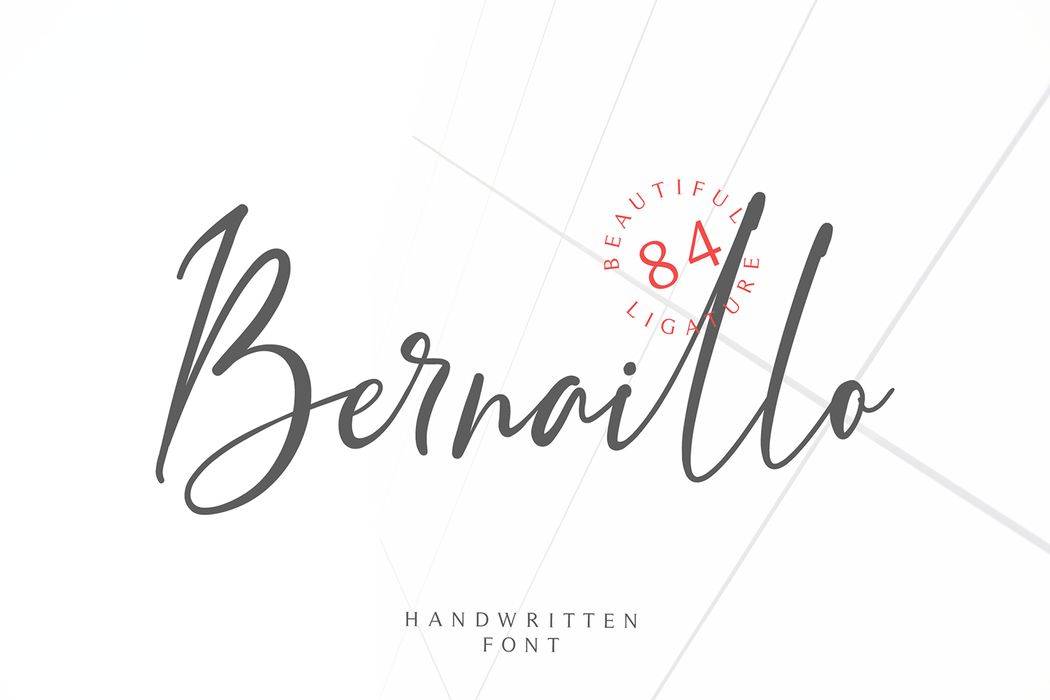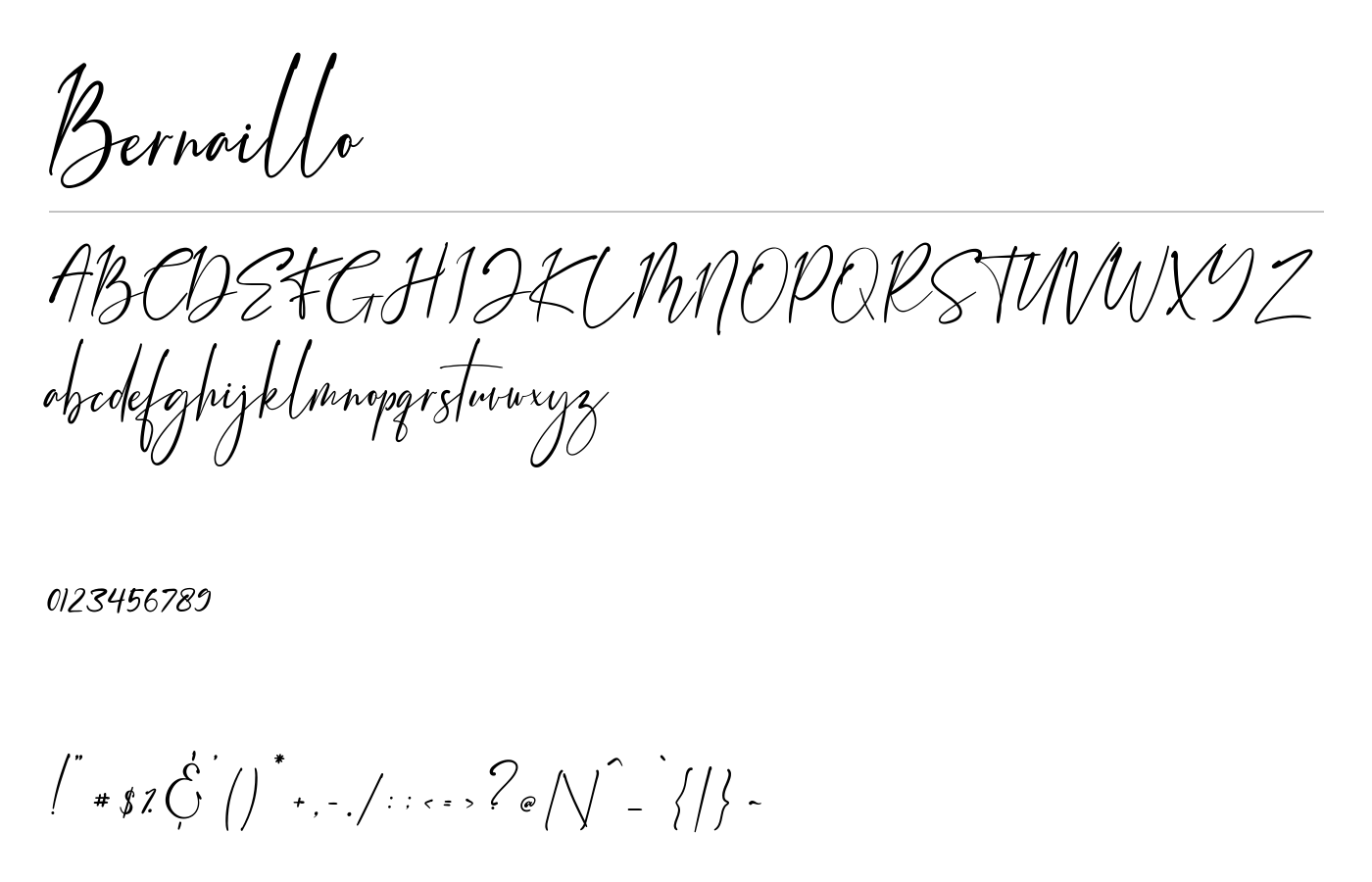
Bernaillo is a stylish script font with a delicate, handwritten feel, featuring thin, flowing strokes and a natural, slightly irregular texture. Its elegant and airy design suits creative projects like invitations, branding, and editorial work where a personal, sophisticated touch is desired. This font works well for adding a modern yet graceful flair to logos, packaging, and headlines.
Bernaillo Font
About Bernaillo Font